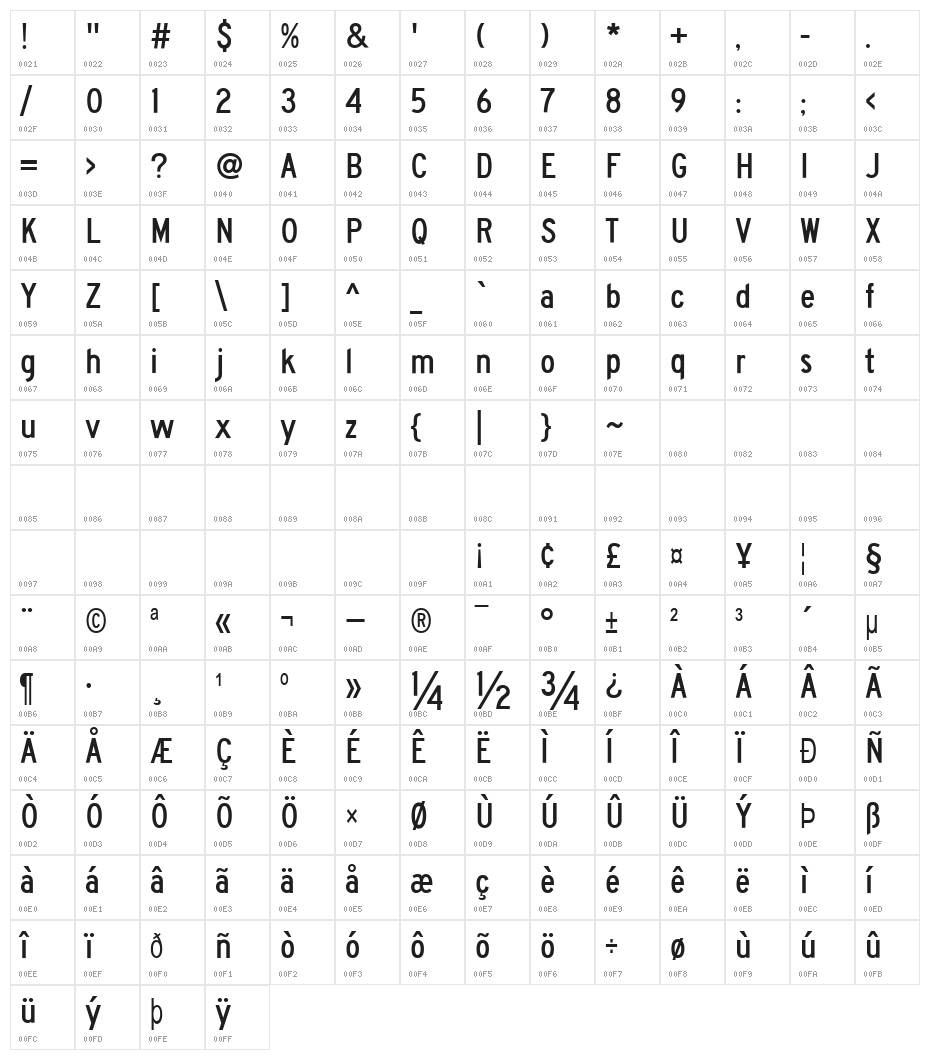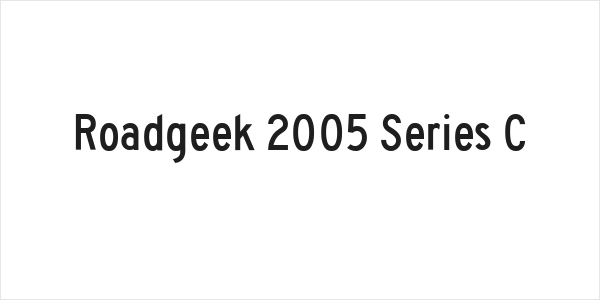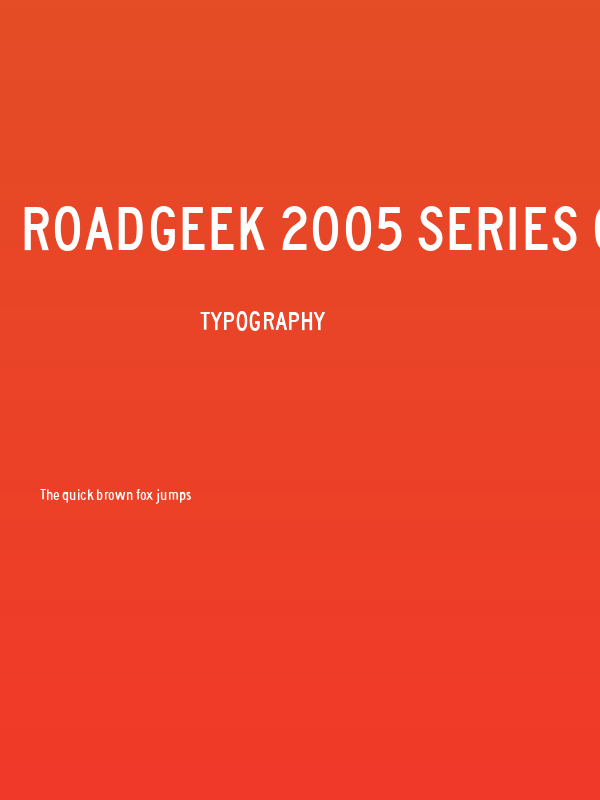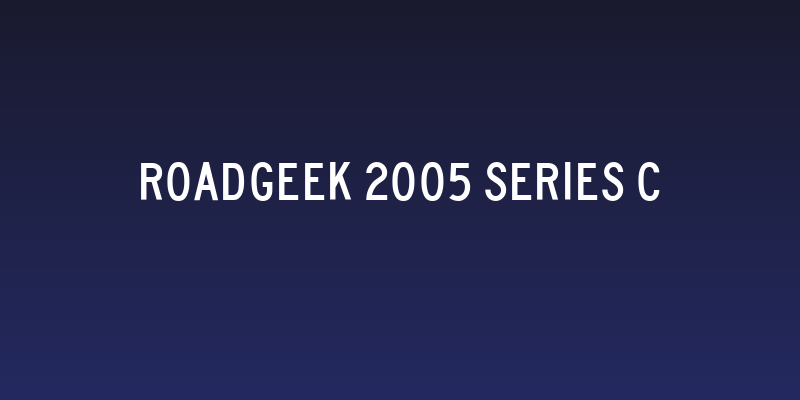
Roadgeek 2005 Series C Font
Roadgeek 2005 Series C Description
This font features a clean and straightforward design, characterized by its sans-serif style. The letters are uniform in width, providing a balanced and harmonious appearance. The uppercase and lowercase letters are well-proportioned, making it highly legible. The numerals are clear and distinct, ensuring easy readability. Special characters are included, maintaining the font's consistent style. Its simplicity and clarity make it suitable for a variety of applications where readability is key.
| Use Case | Headlines, Signage, Manuals |
| Proposed Projects | Ideal for road signage, instructional manuals, and any project requiring clear and readable text. |